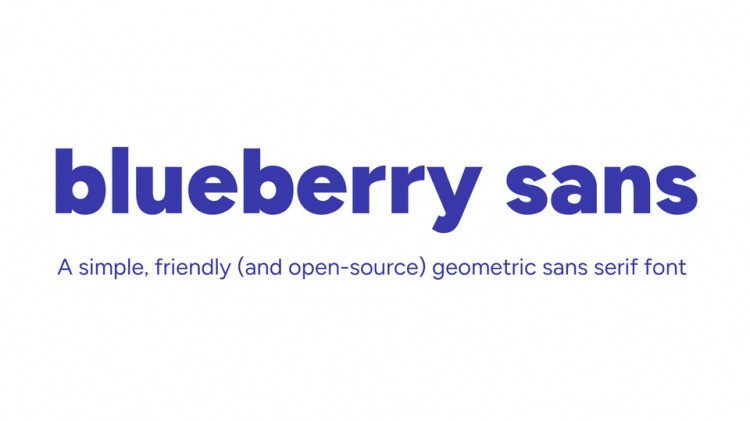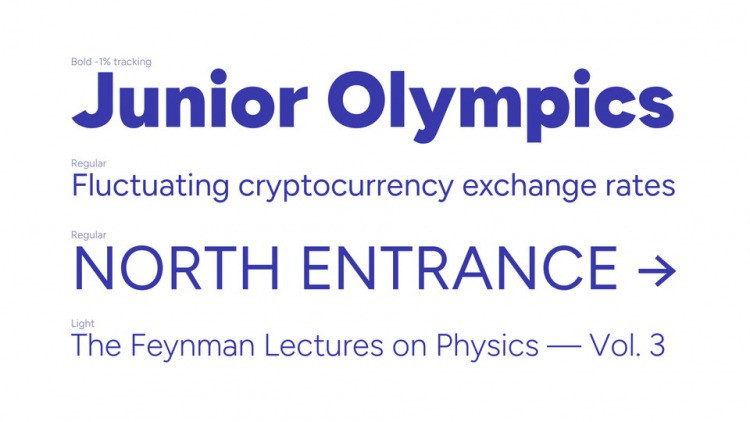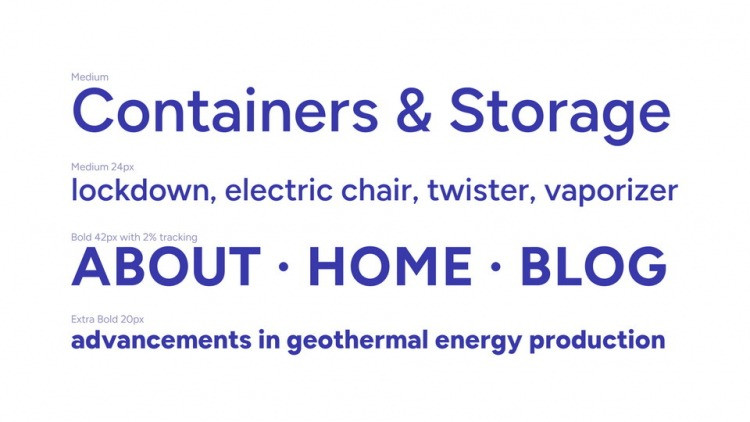
Blueberry Sans Font
This is a modern powerful quality sans serif font with great versatility. This extended font can be used for bold editorial statements, graphic heavy prints or just as a simple logo. This new type will definitely make your designs stand out and unique.